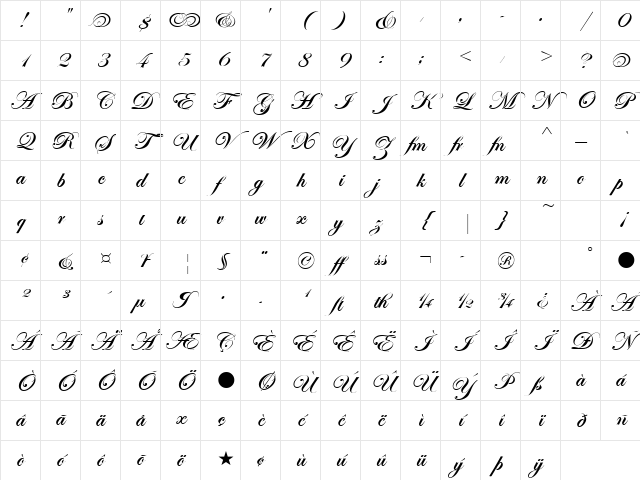
Complete Edwardian Scr Alt ITC TT Bold glyph index. Displaying only characters natively supported by Edwardian Scr Alt ITC TT Bold font.
Edwardian Scr Alt ITC TT is a composed and adaptable typeface that performs quietly and consistently across a wide range of design contexts. Its bold stroke weight gives it real presence on the page.